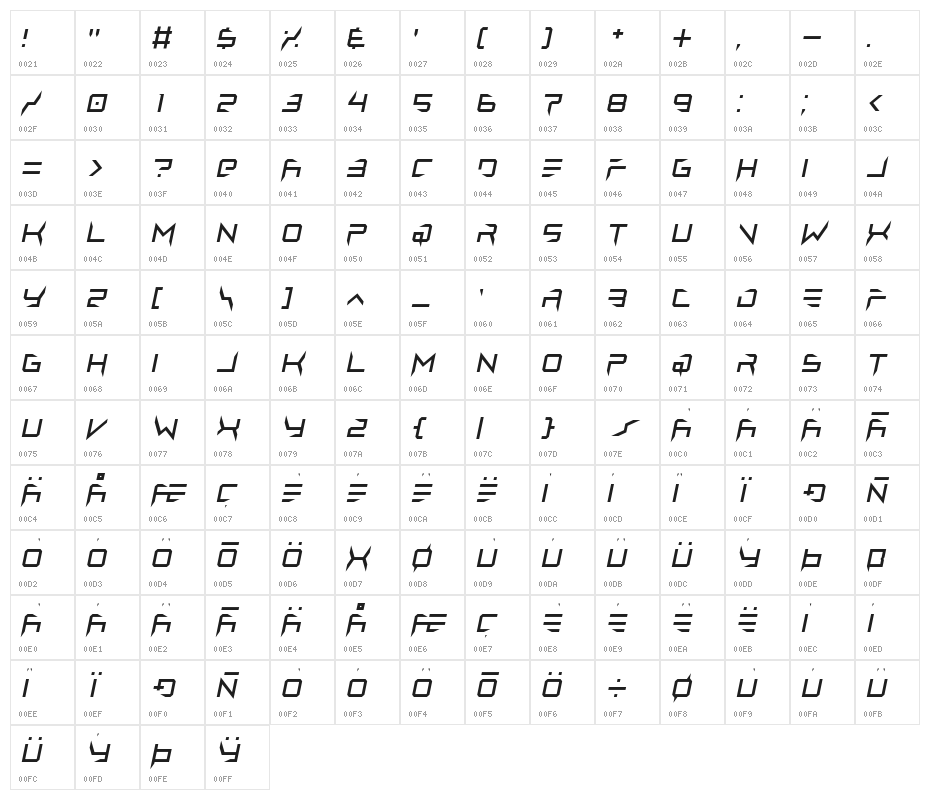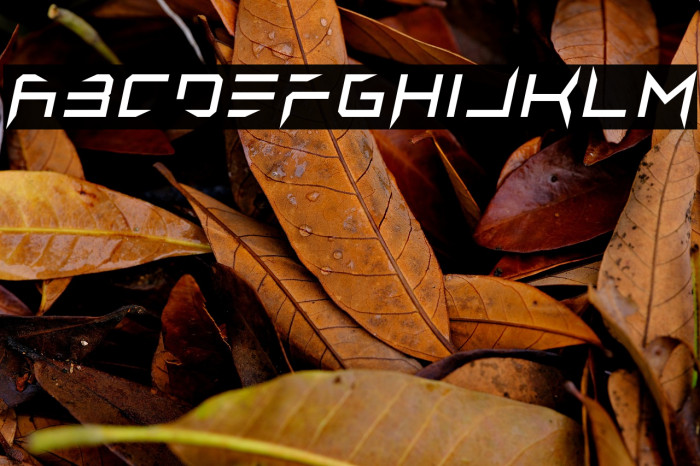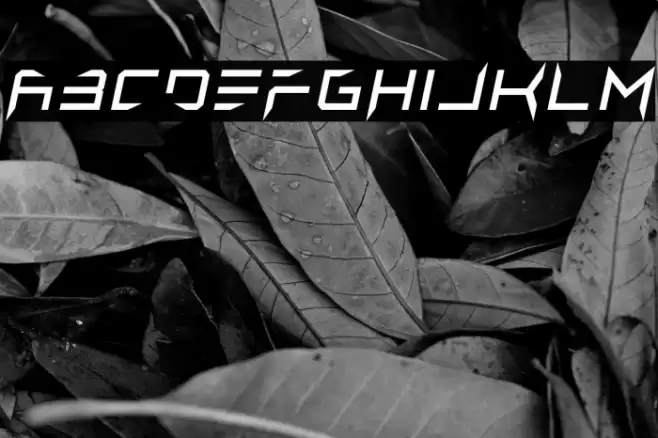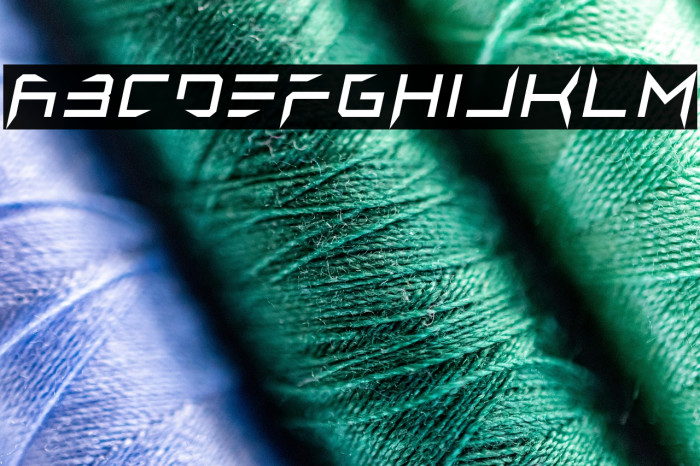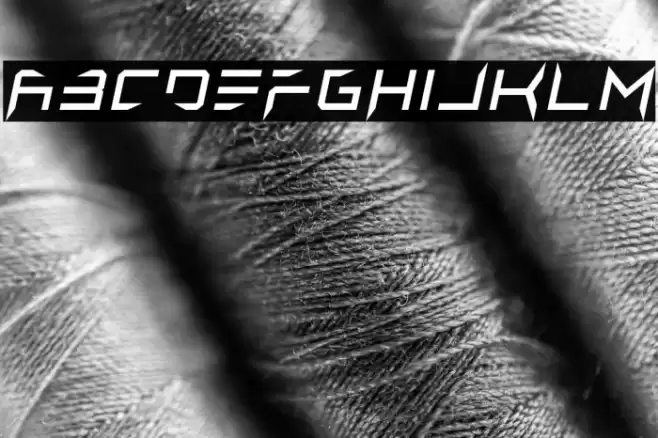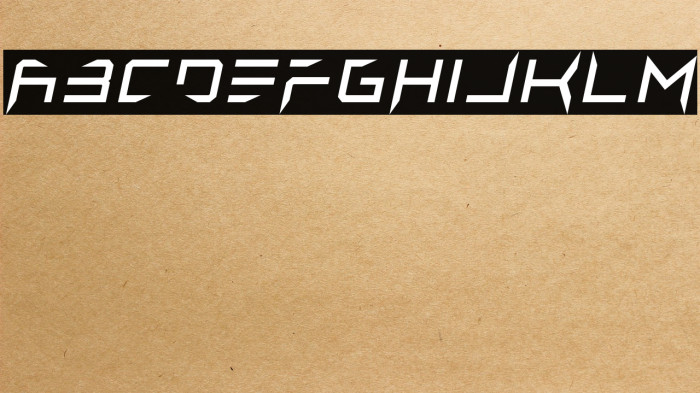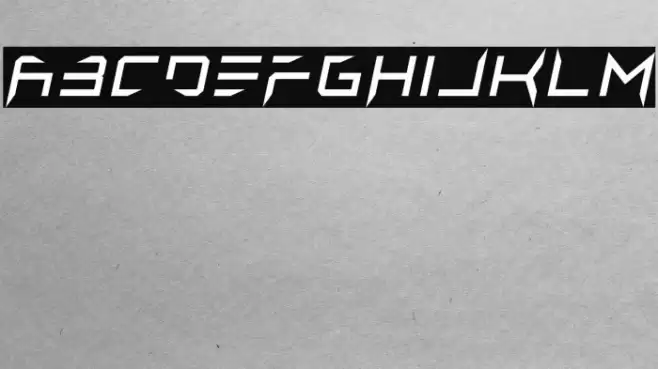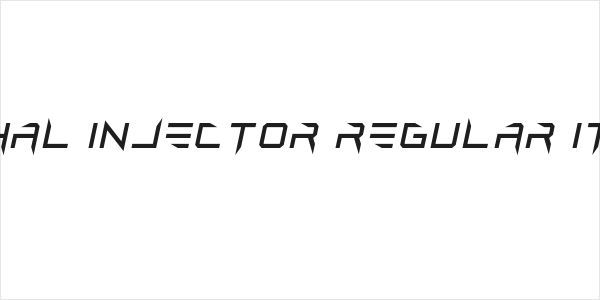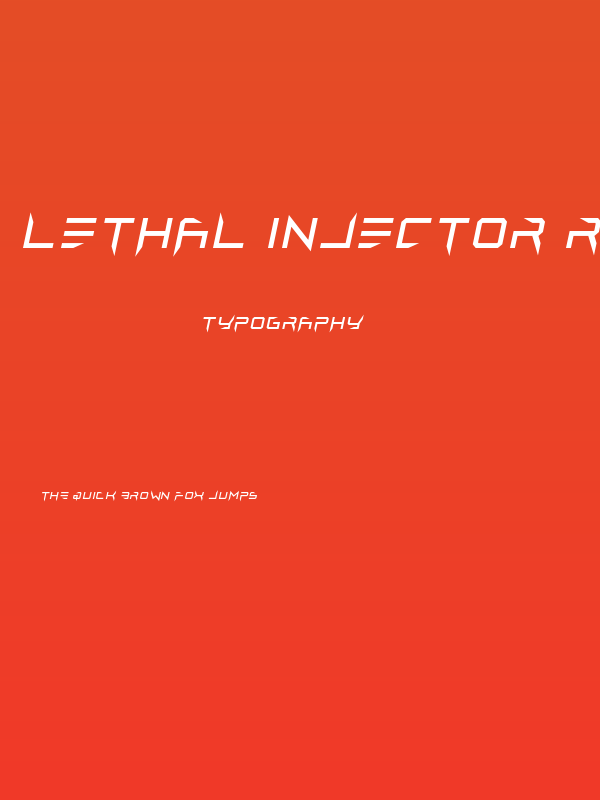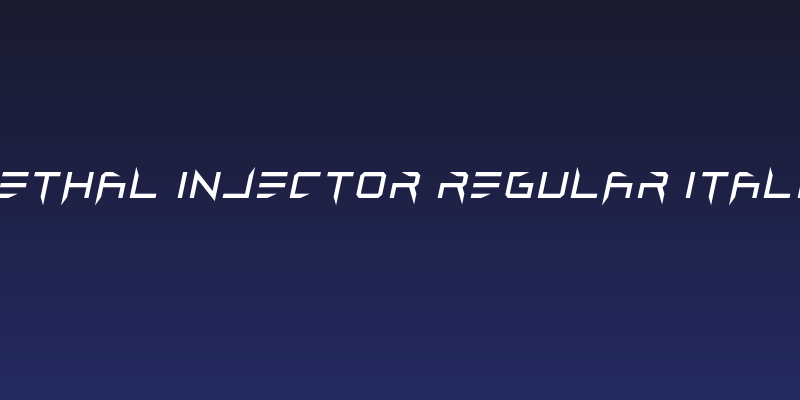
Lethal Injector Regular Italic Font
Lethal Injector Regular Italic Description
This font features a futuristic and angular design, characterized by sharp edges and a dynamic slant. The letters are bold and geometric, with a distinct sci-fi aesthetic that makes it stand out. The uppercase and lowercase letters maintain a consistent style, with unique cutouts and angles that give it a modern, edgy feel. The numerals and special characters follow the same design principles, ensuring a cohesive look across all glyphs. This font is ideal for projects that require a bold and unconventional typeface.
| Proposed Projects | Ideal for video game titles, sci-fi movie posters, technology branding, and edgy graphic design projects. |